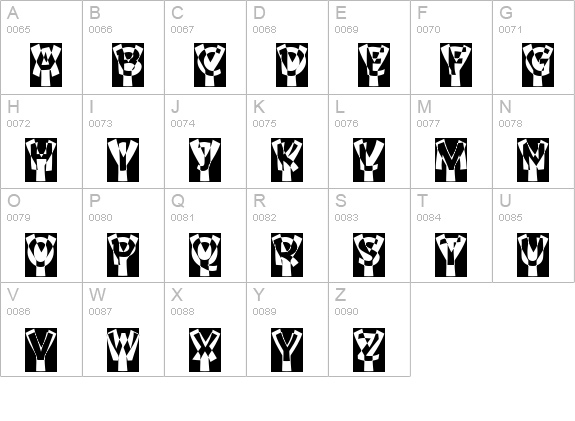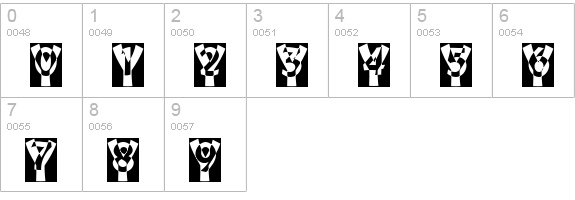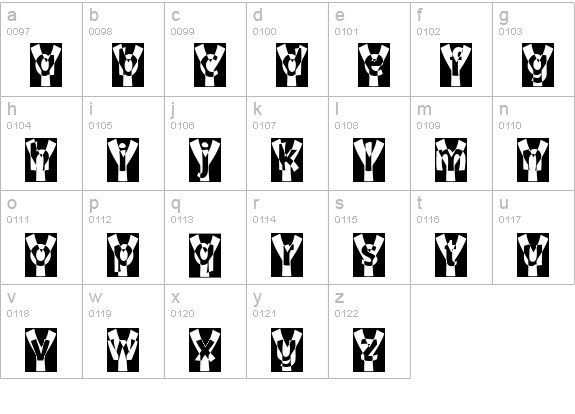
Introducing the captivating Why? font, a delightful and versatile typeface that will leave you questioning why you haven't discovered it sooner. With its unique and artistic design, Why? font adds a touch of curiosity and intrigue to any creative project. Whether you are designing a logo, crafting a brand identity, or creating stunning visuals for your website, this font is sure to make a lasting impression. What sets Why? font apart is not just its captivating appearance, but also the fact that it is freely available to download at FontsMarket.com. Yes, you read that right! This incredible font can be yours without breaking the bank. Embrace the freedom of creativity and explore the endless possibilities that Why? font offers, all without spending a penny. With its wide range of character variations and stylistic options, Why? font allows you to effortlessly express your unique personality and vision. From bold and impactful headlines to elegant and refined body text, this font seamlessly adapts to any design concept, making it an indispensable tool for designers, artists, and creators alike. But Why? font is not just visually stunning; it also boasts exceptional readability, ensuring that your message is conveyed with clarity and precision. Its carefully crafted letterforms ensure that each word is perfectly balanced, creating a harmonious flow of text that captivates readers and keeps them engaged. So, why settle for ordinary when you can embrace extraordinary? Download Why? font today from FontsMarket.com and unlock a world of creativity and expression. Let your designs speak volumes and leave a lasting impression with this remarkable font that is freely available to all. Don't wait another moment, indulge in the freedom of design and elevate your creative projects with the captivating Why? font.